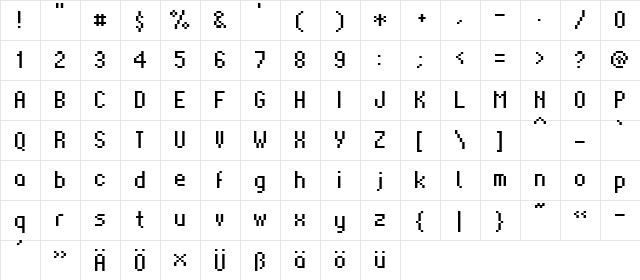
supernatural_10_01 Regular Font Preview
supernatural_10_01 Regular
Design Context for supernatural_10_01 Typeface
supernatural_10_01 takes a measured approach to typography — its balanced proportions and neutral character make it a reliable workhorse for both digital and print work.